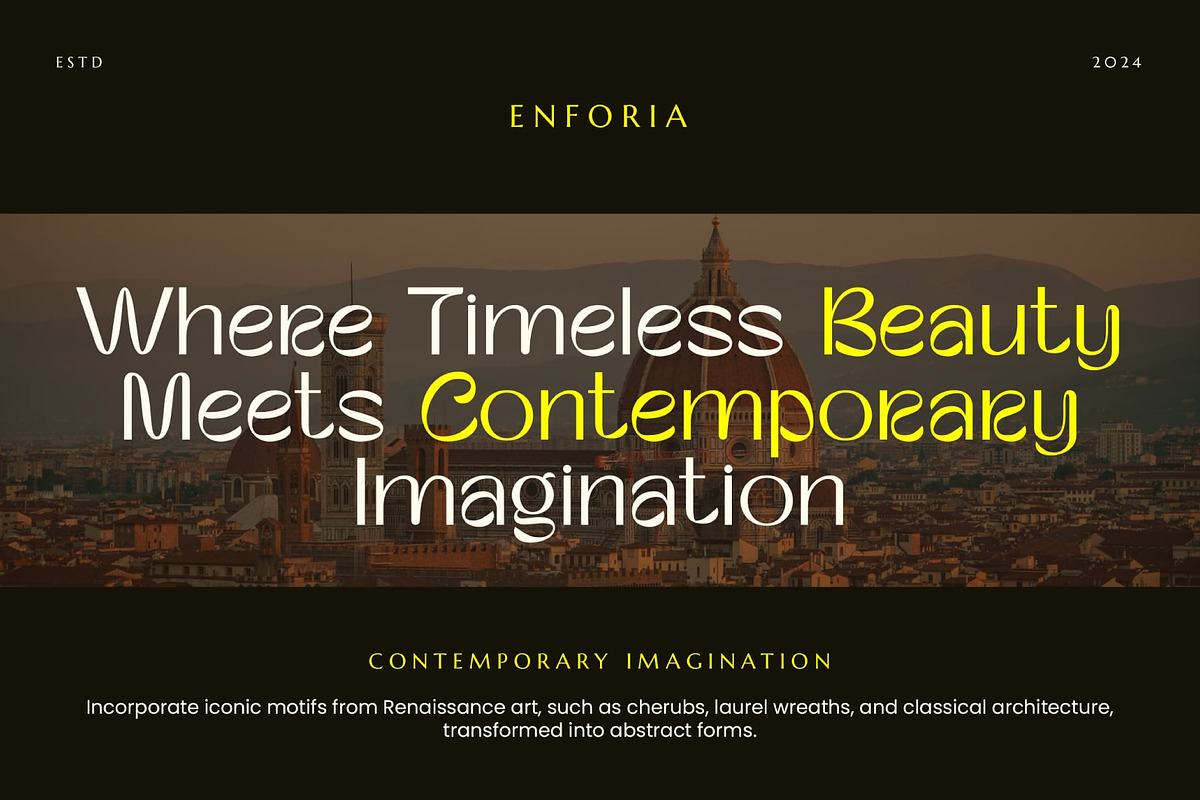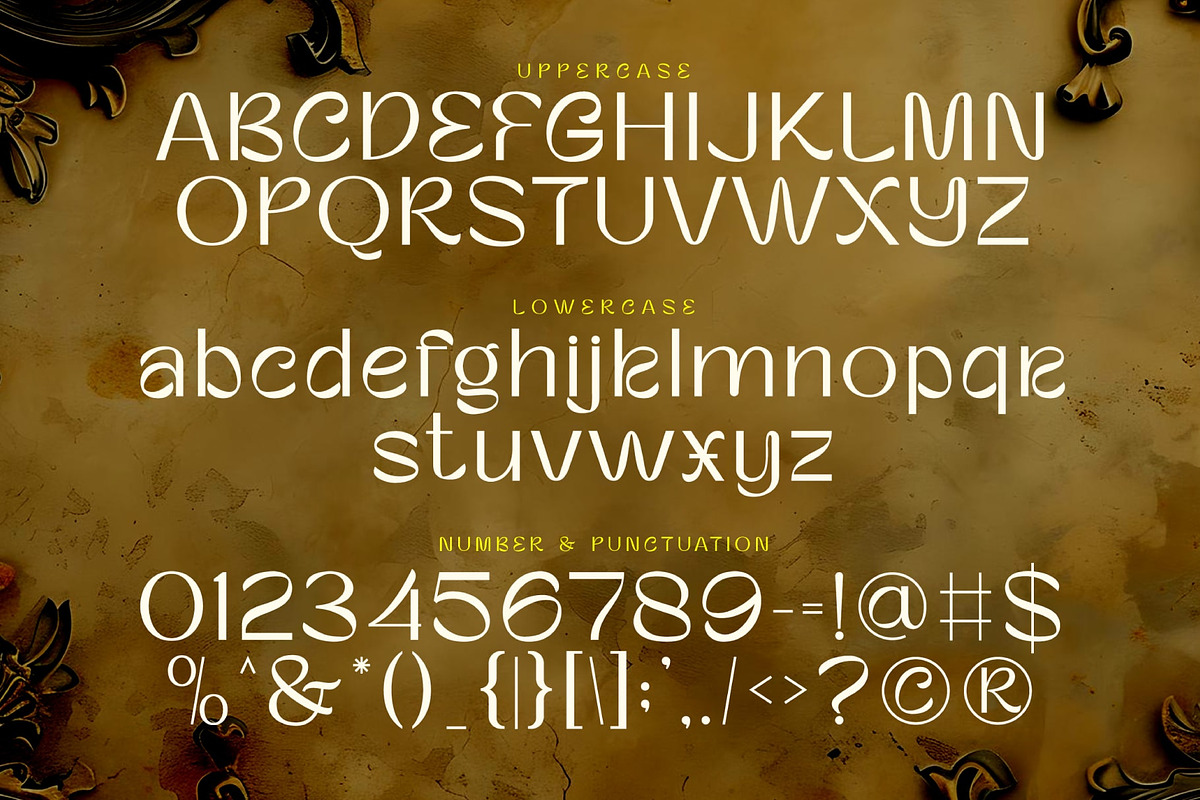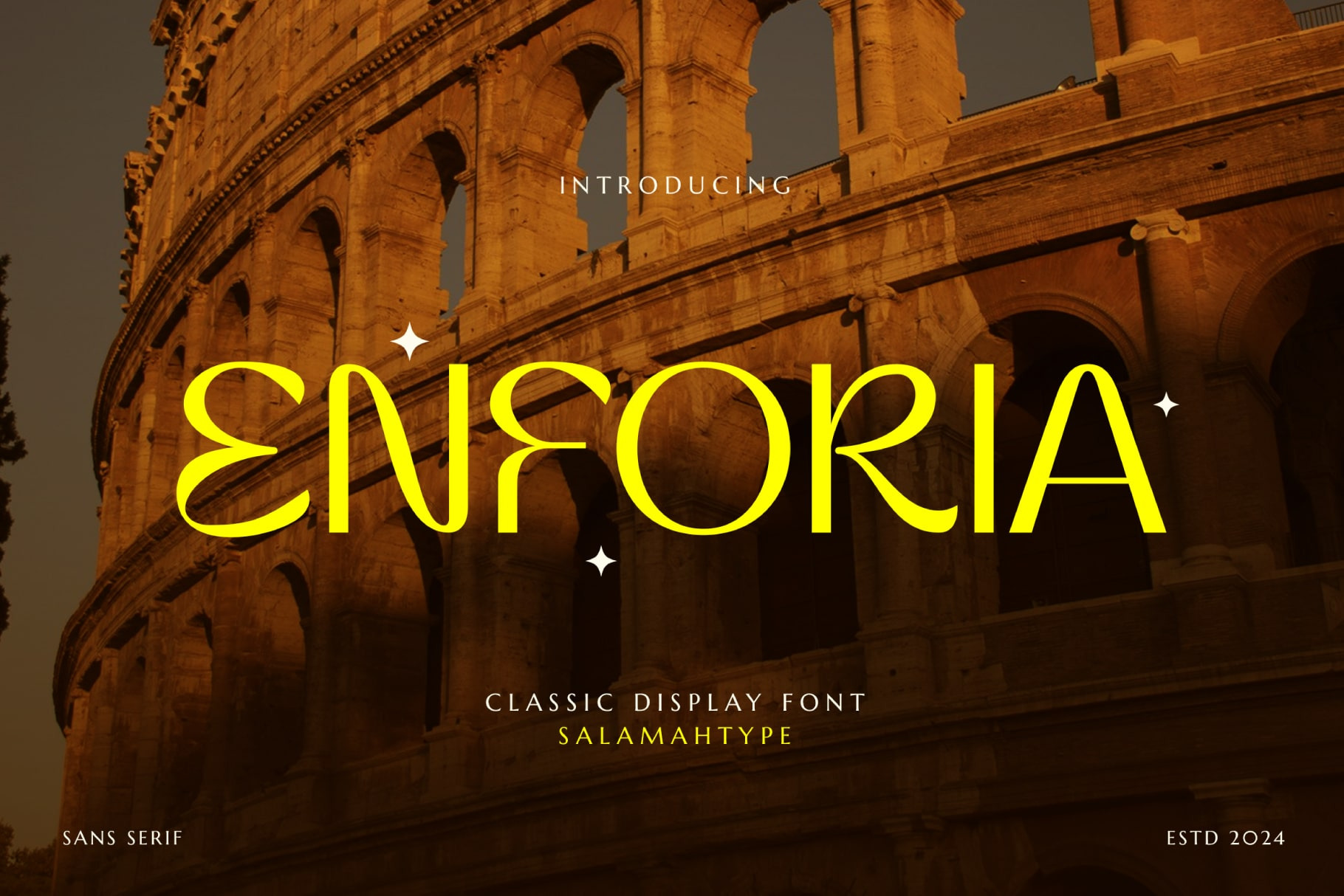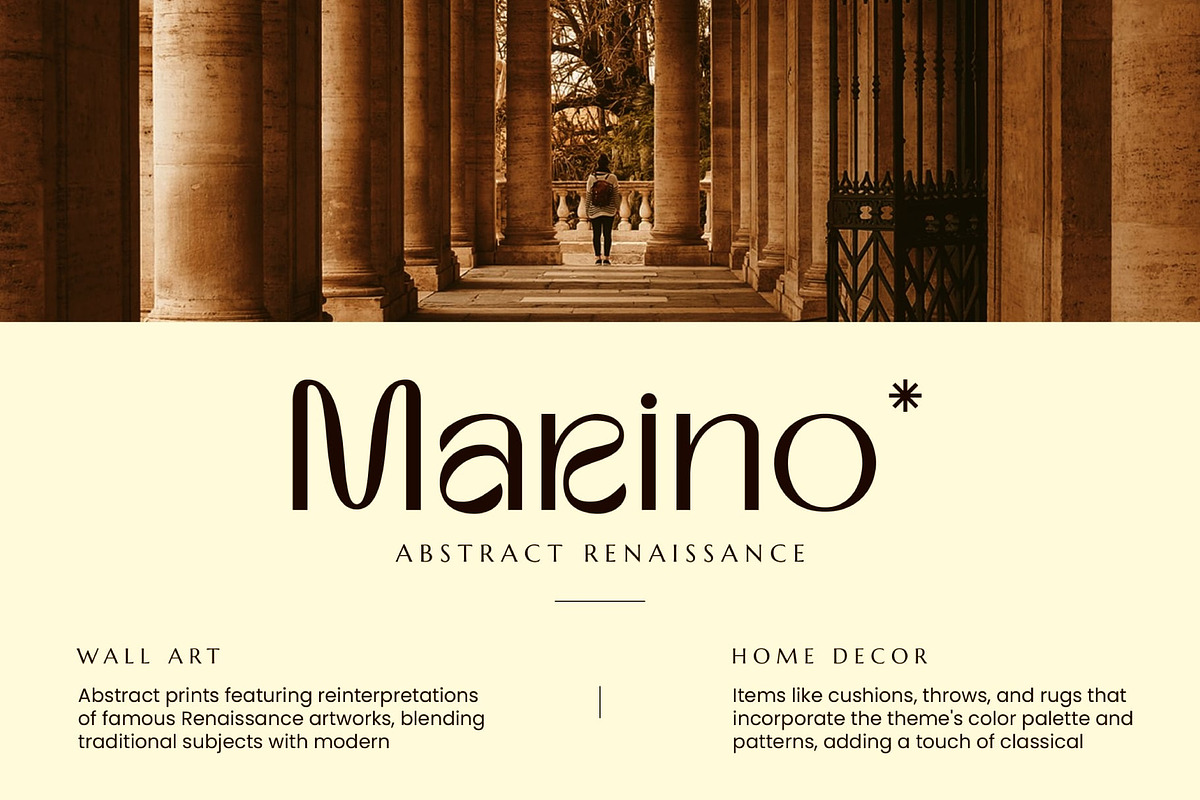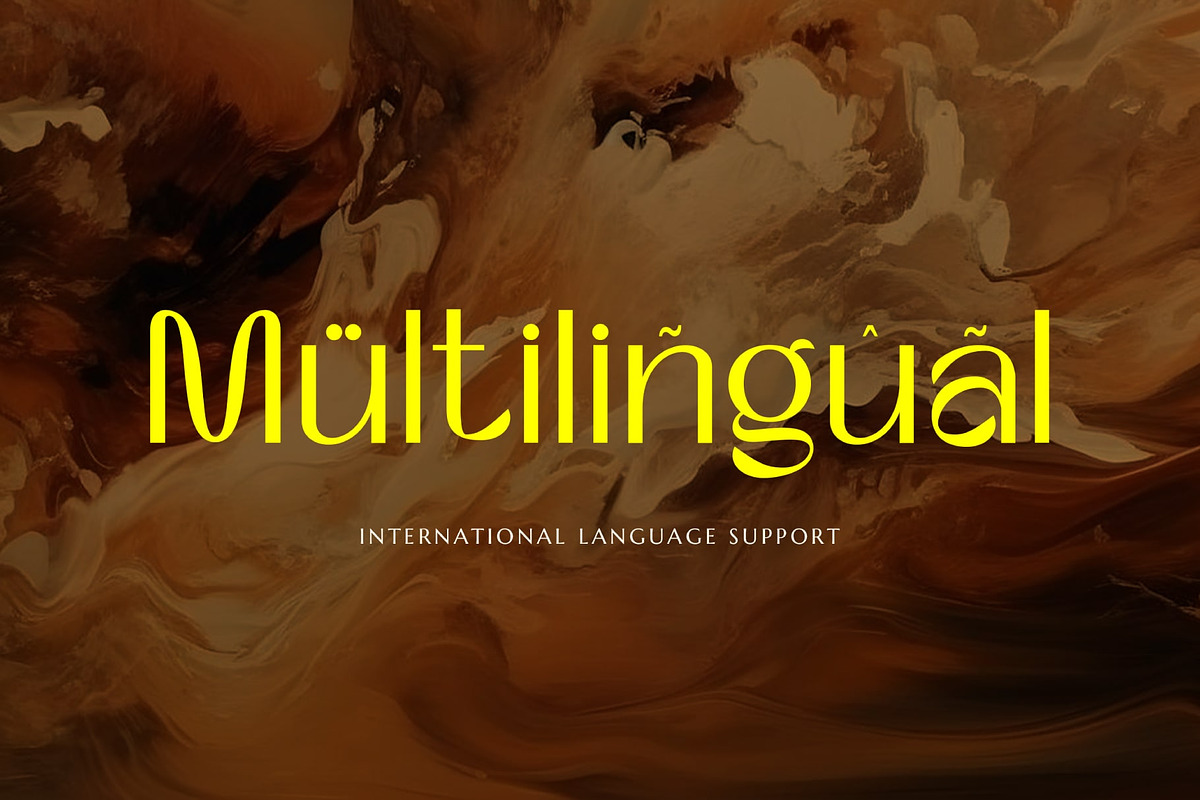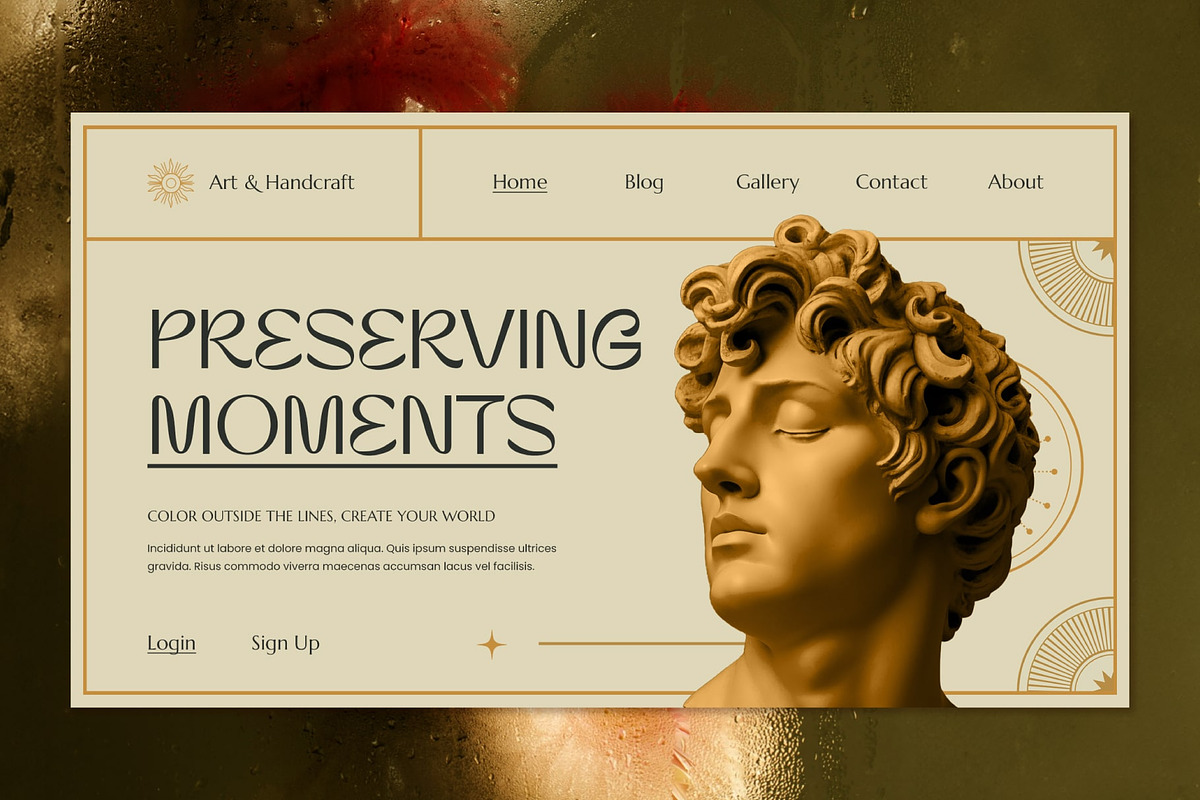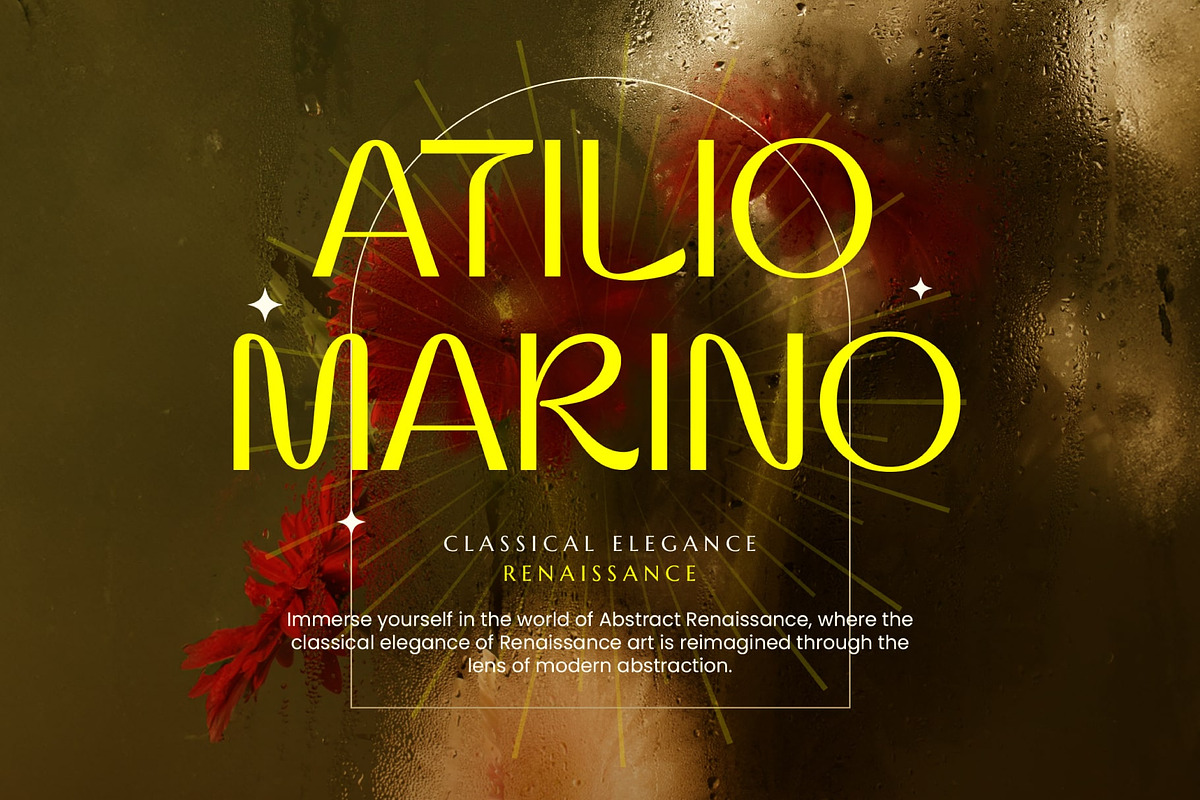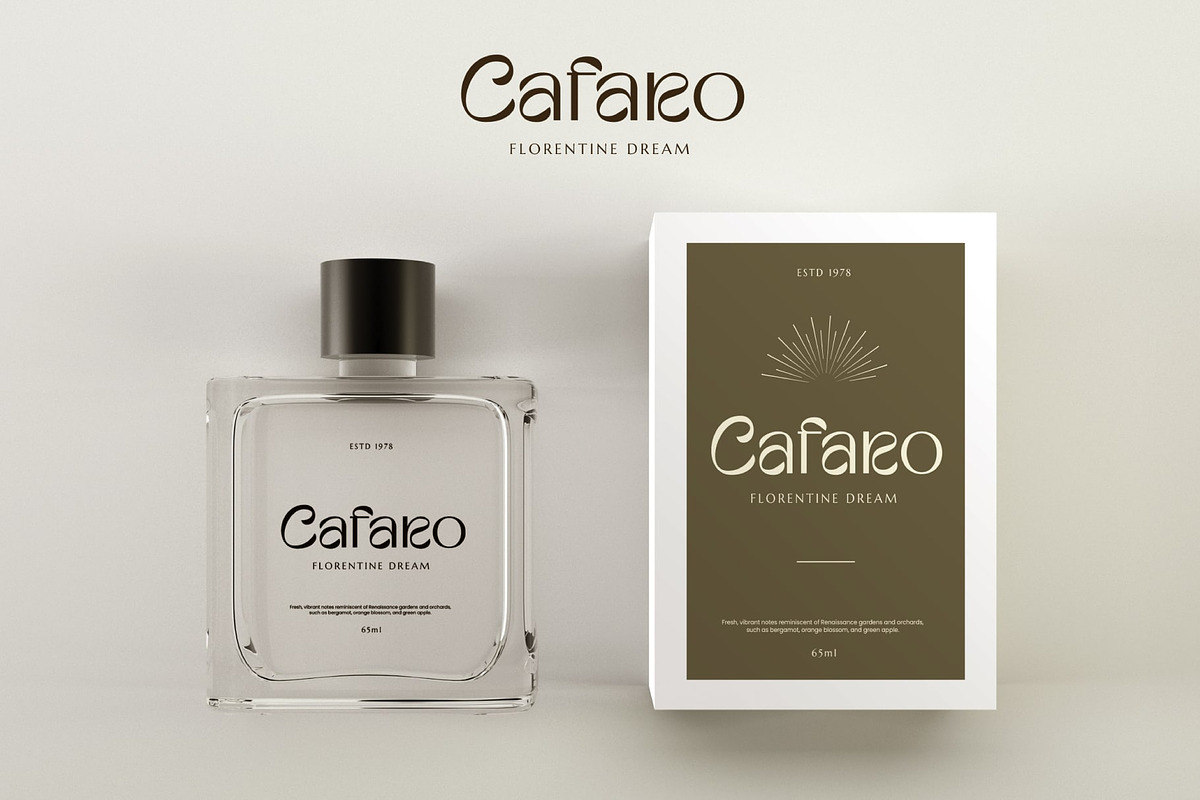
Enforia - Classic Display Font
Enforia is a classic display font with unique characters and distinctive curves, providing a different and prominent impression in every use. Its elegant and attractive form makes Enforia ideal for various design needs, such as creating logos, magazines, or graphic templates like flyers. The uniqueness of this font lies in its detailed and smooth curves, adding aesthetic value and visual appeal. Enforia can give a modern touch to book titles and logos, making it an ideal choice for designers seeking a font that combines classic and modern elements. With its captivating appearance, Enforia is capable of creating a strong and memorable impression on any design project, making it one of the most versatile and useful fonts in various graphic applications.